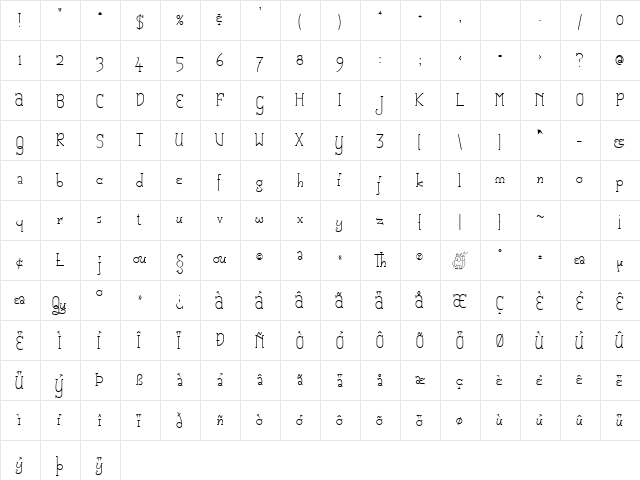
Catharsis Macchiato Regular
Design Context for Catharsis Macchiato Typeface
Catharsis Macchiato offers clean, dependable letterforms without strong stylistic allegiance, making it a practical choice for designers who need flexibility.